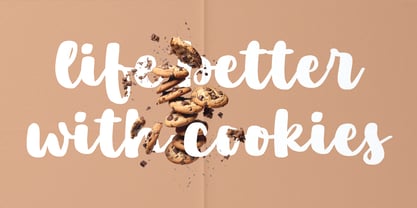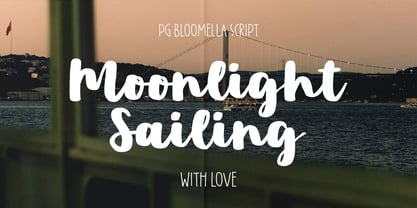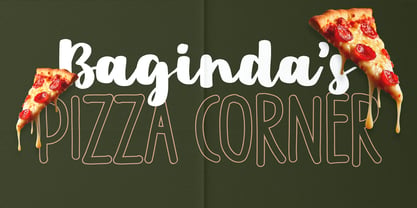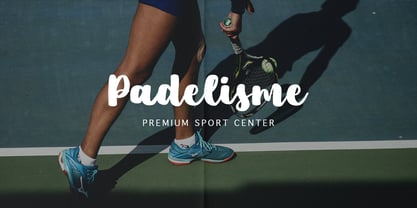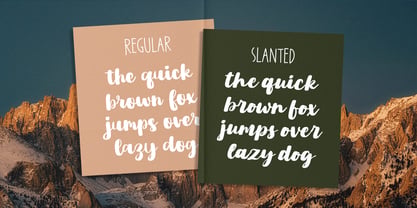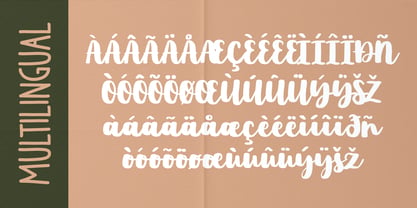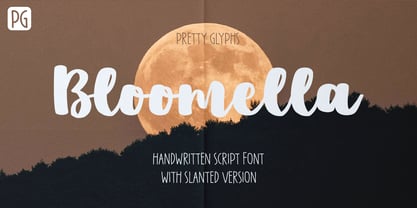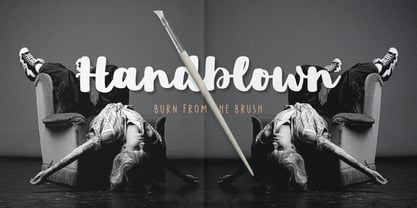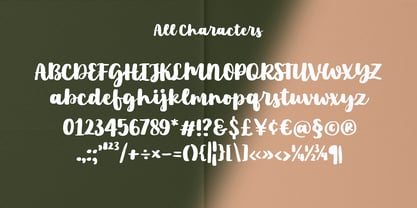
PG Bloomella
by Pretty Glyphs
The PG Bloomella Font Family was designed by Ulfa Tiara Putri and published by Pretty Glyphs. PG Bloomella contains 2 styles and family package options. More about this family
PG Bloomella is a playful handwritten font with a natural, friendly feel and smooth, rounded strokes. Designed to bring a casual yet charming personality, it works perfectly for branding, quotes, packaging, and creative projects. Comes in four versatile styles—Regular & Slanted, giving you flexibility to mix, match, and create eye-catching designs with ease.
Designers: Ulfa Tiara Putri
Foundry: Pretty Glyphs